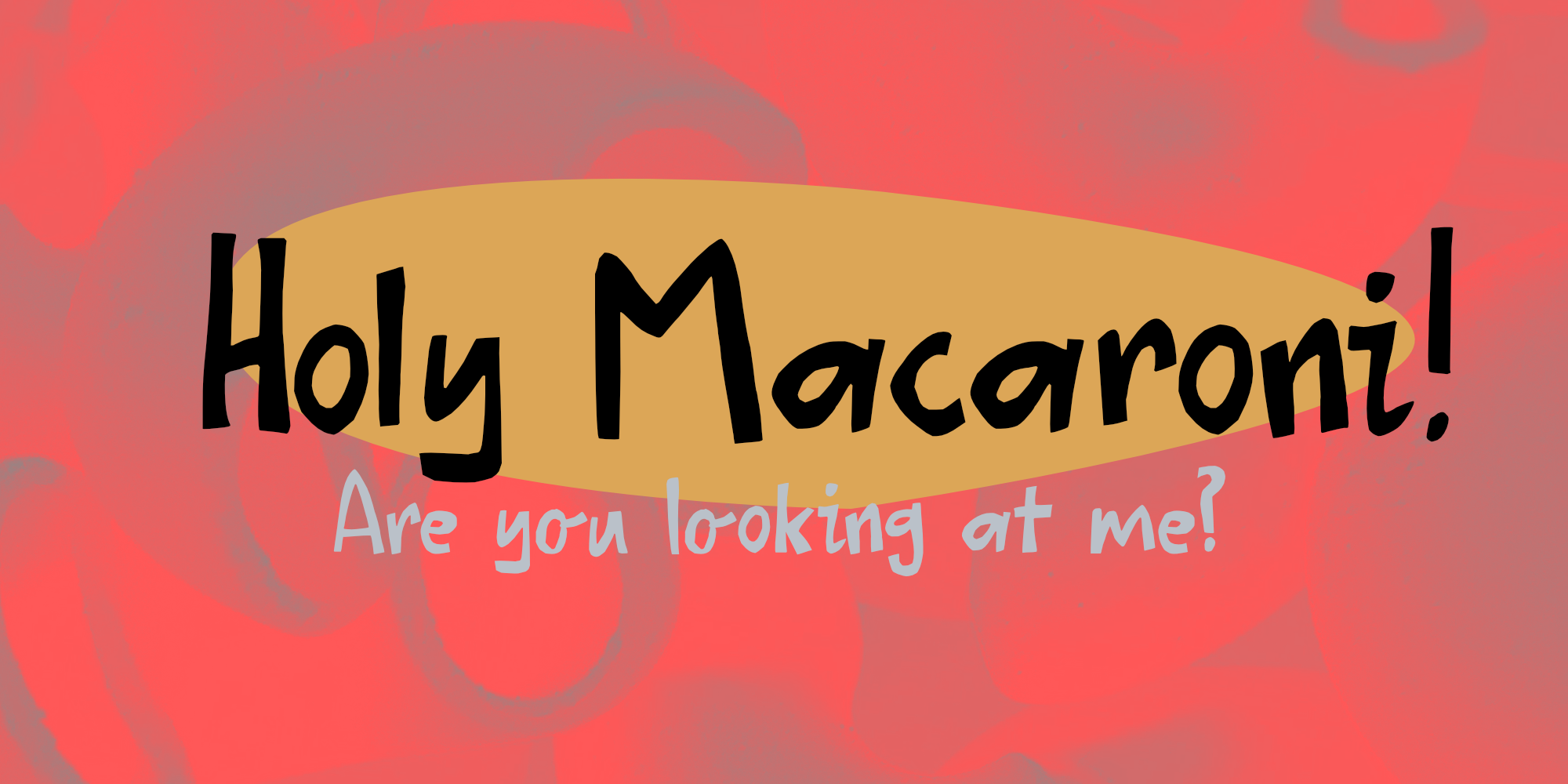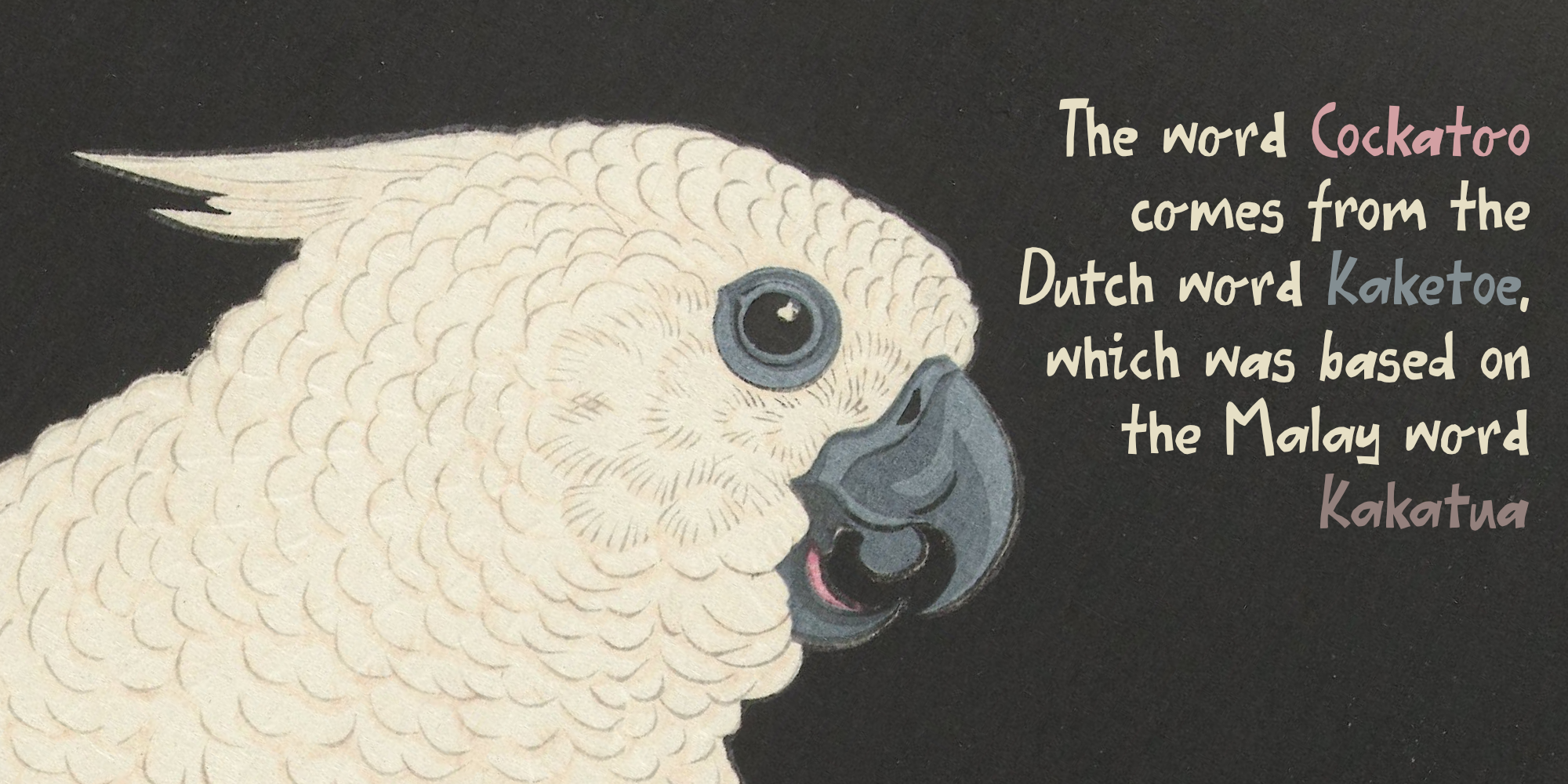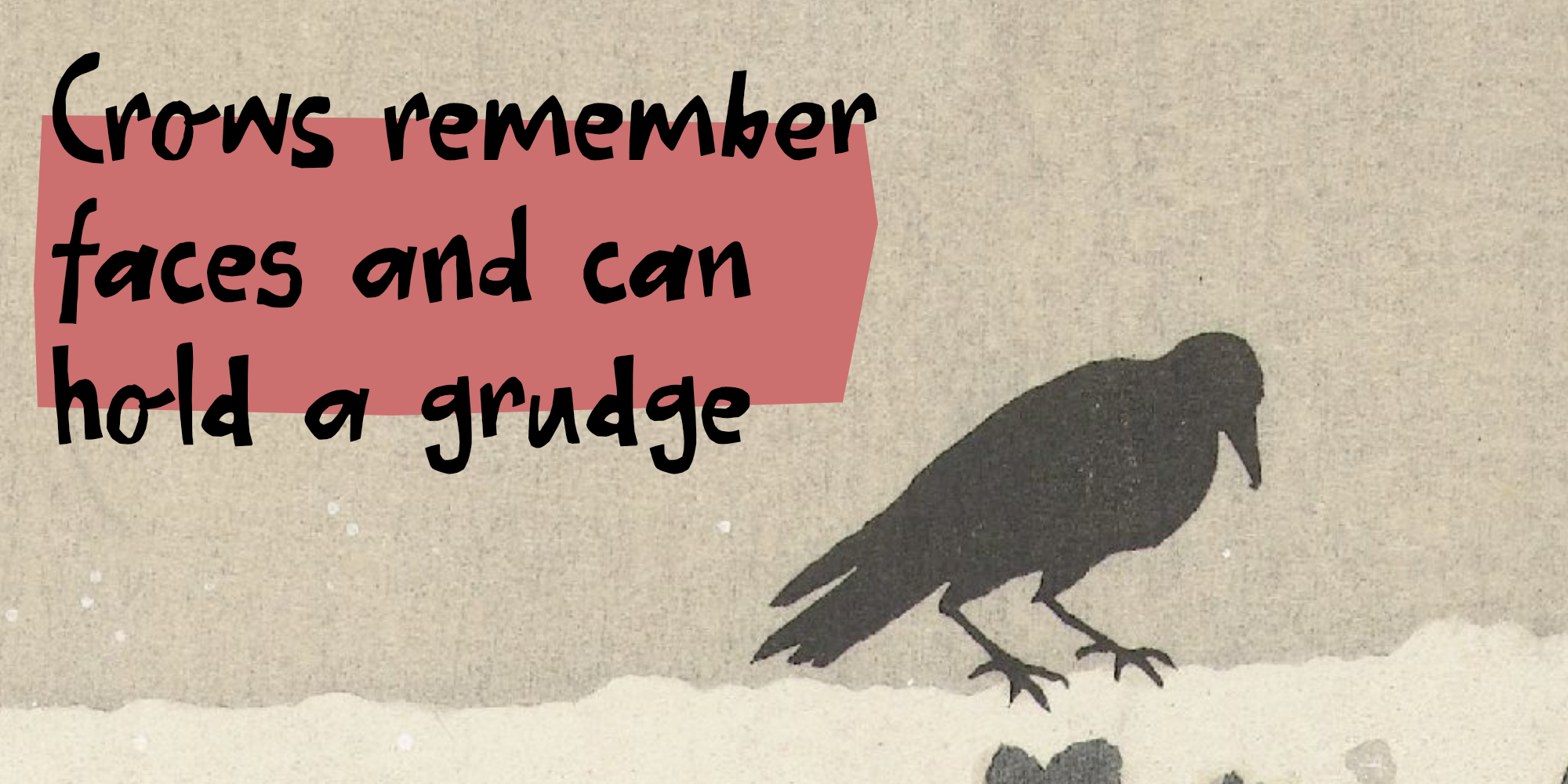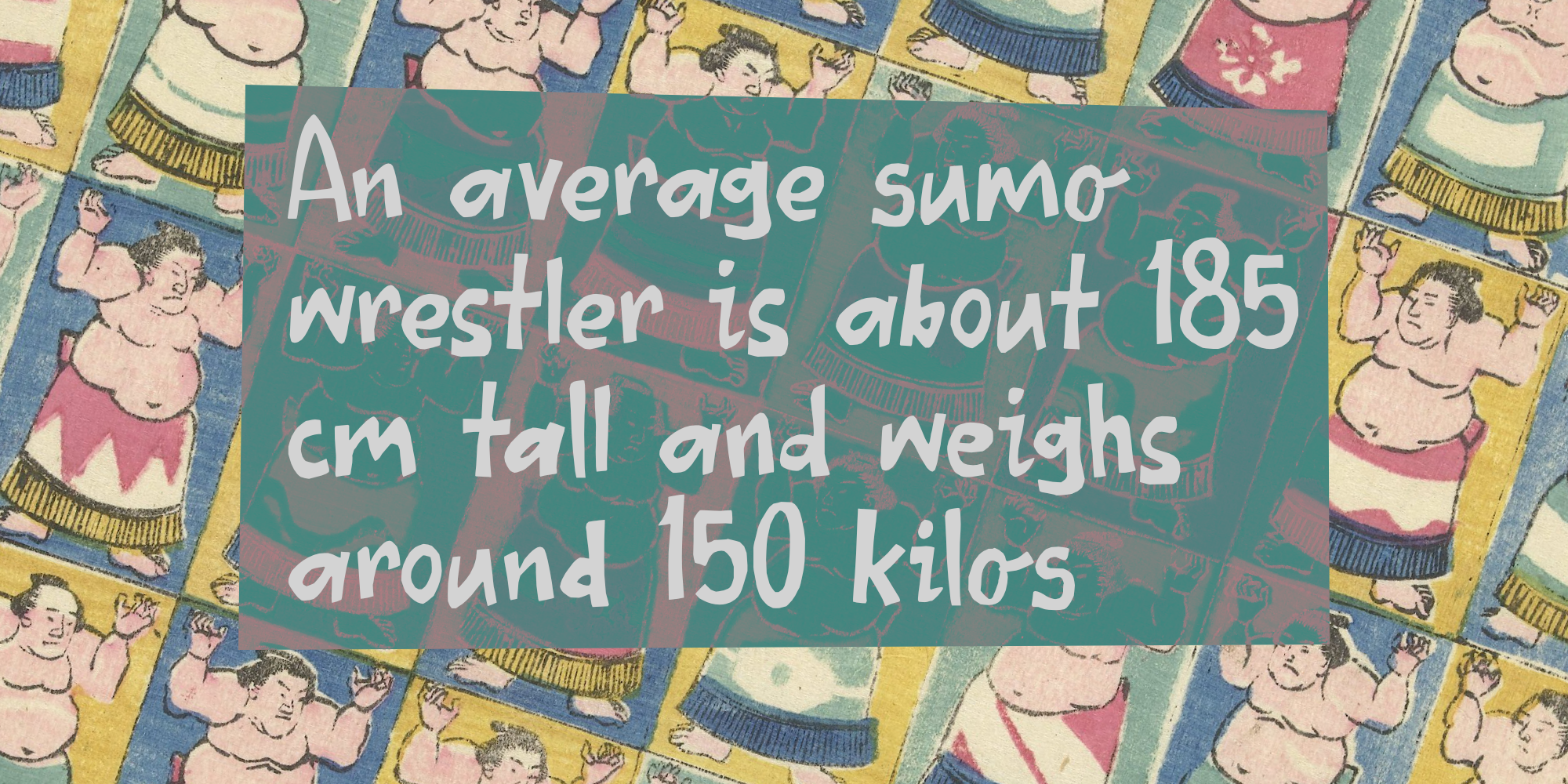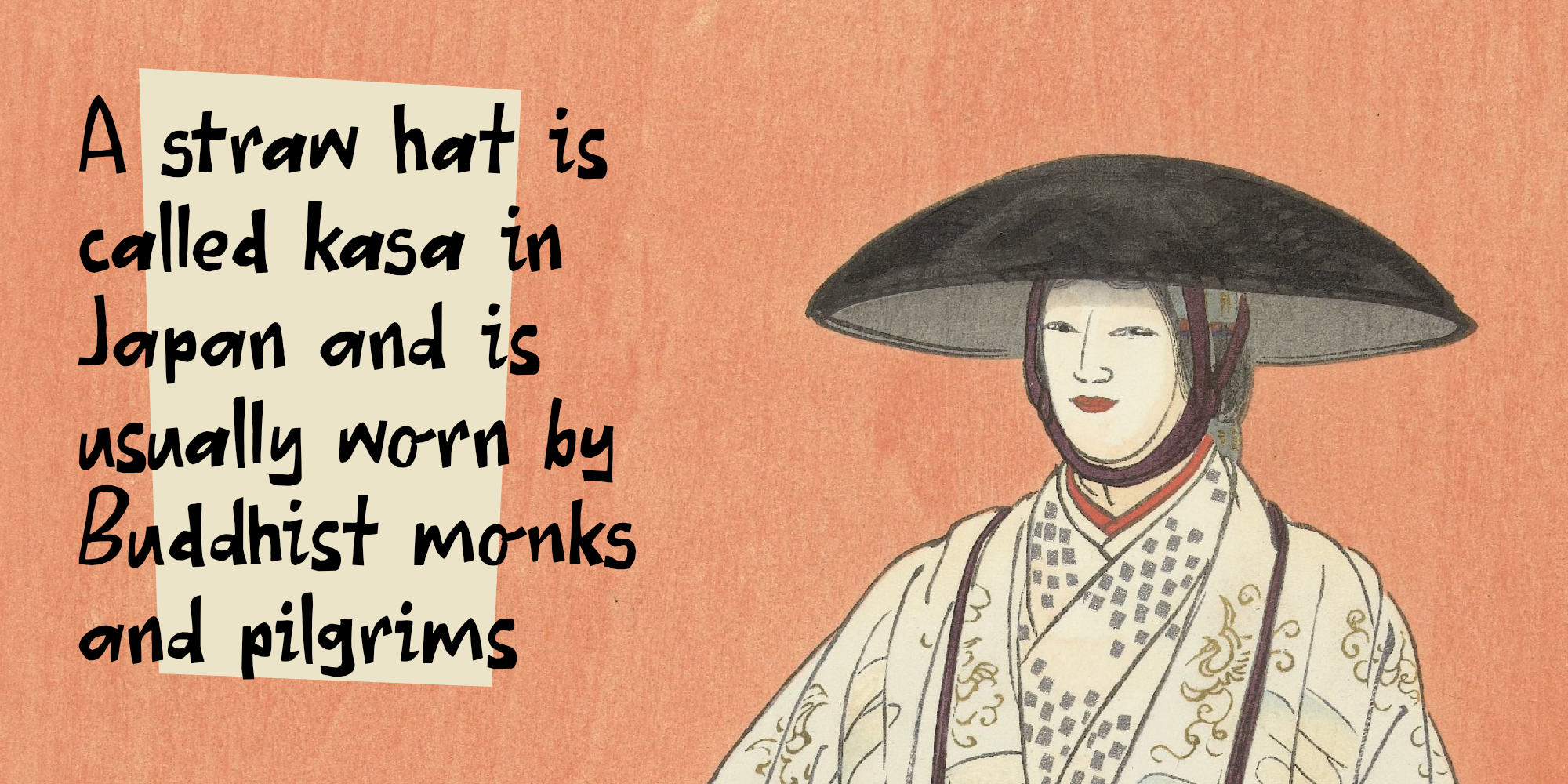
Holy Macaroni (2 fonts)
I made Holy Macaroni with a roller ball pen. I drew the glyphs, then scanned the paper, filled the outlines and vectorised them. The result is a messy, yet fun font which you can use for almost anything.